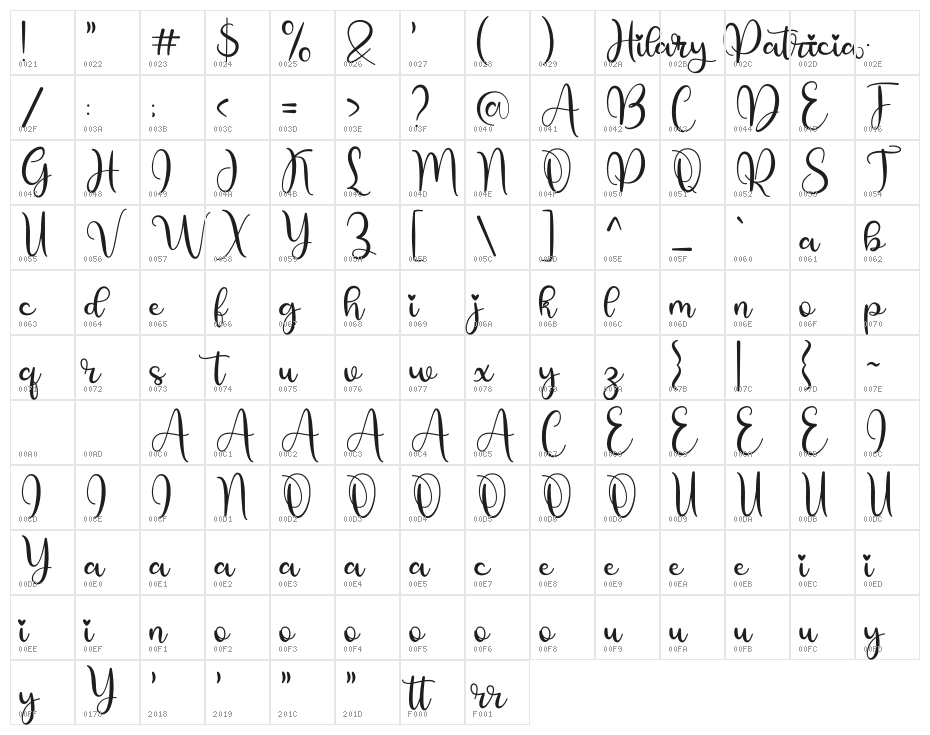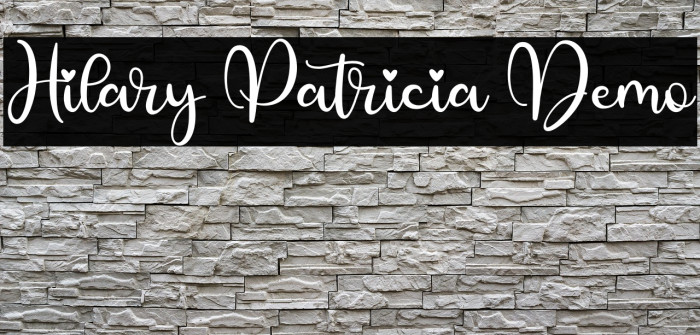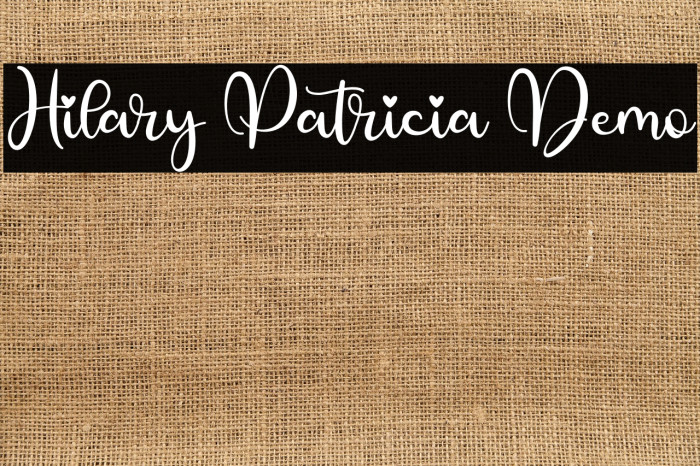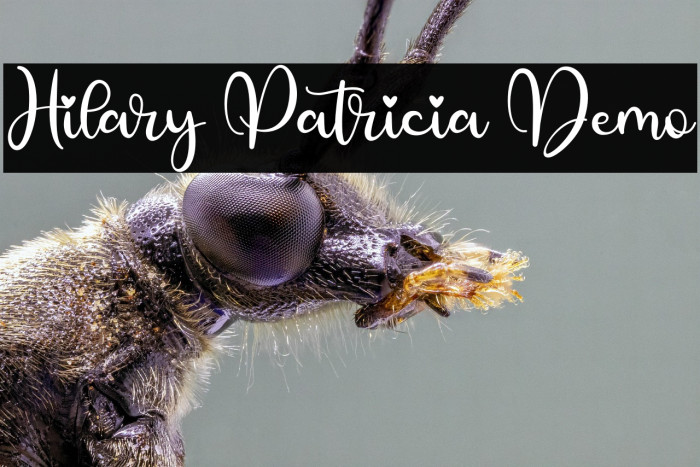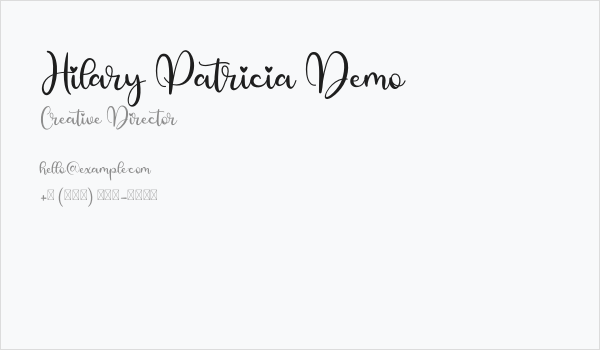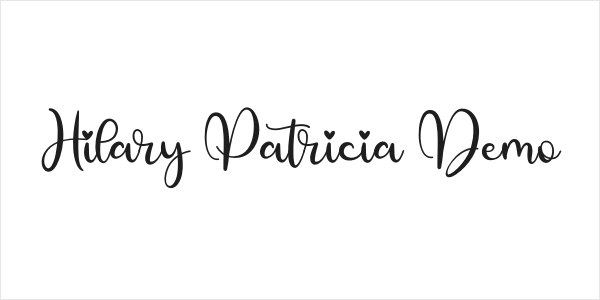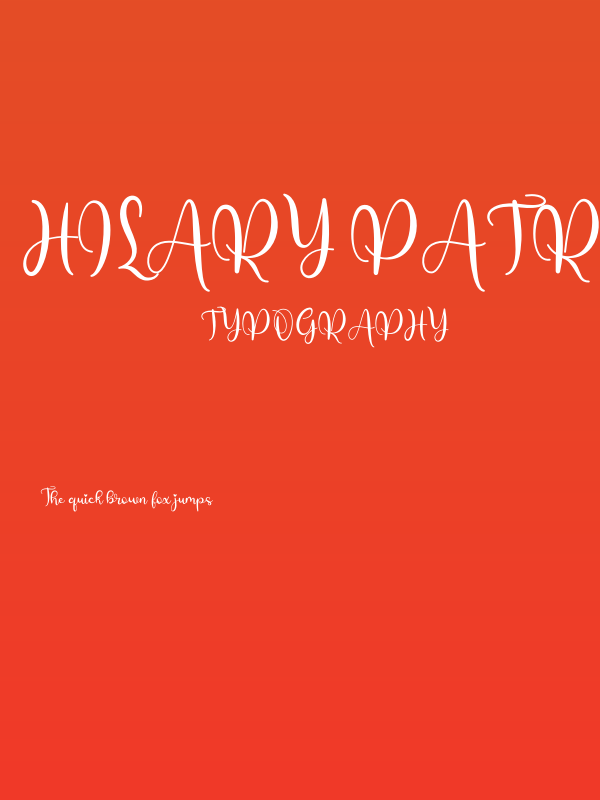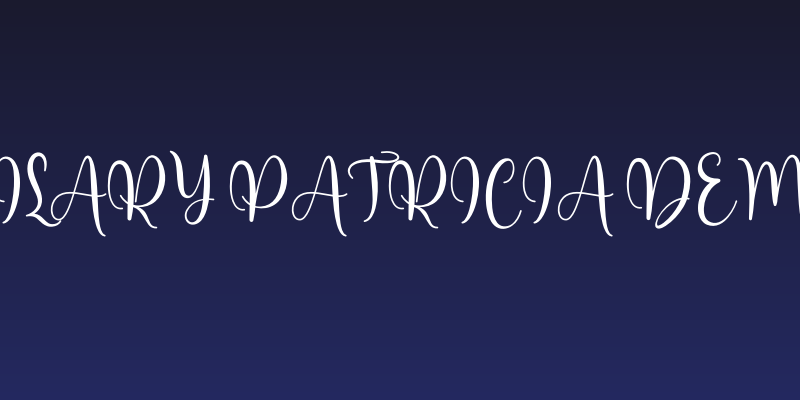
Hilary Patricia Demo Font
Hilary Patricia Demo Description
This font features a playful and elegant script style with a handwritten appearance. The uppercase letters are characterized by their flowing, cursive lines and slight slant, giving them a whimsical yet sophisticated look. The lowercase letters maintain a consistent style, with some letters featuring unique loops and flourishes that add to the font's charm. The numbers and special characters are designed to complement the overall aesthetic, ensuring a cohesive appearance across all text. This font is perfect for projects that require a personal touch, such as invitations, greeting cards, or branding materials.
Use CaseLogos, Headlines, Invitations
Proposed ProjectsIdeal for wedding invitations, greeting cards, personal branding, and decorative projects.